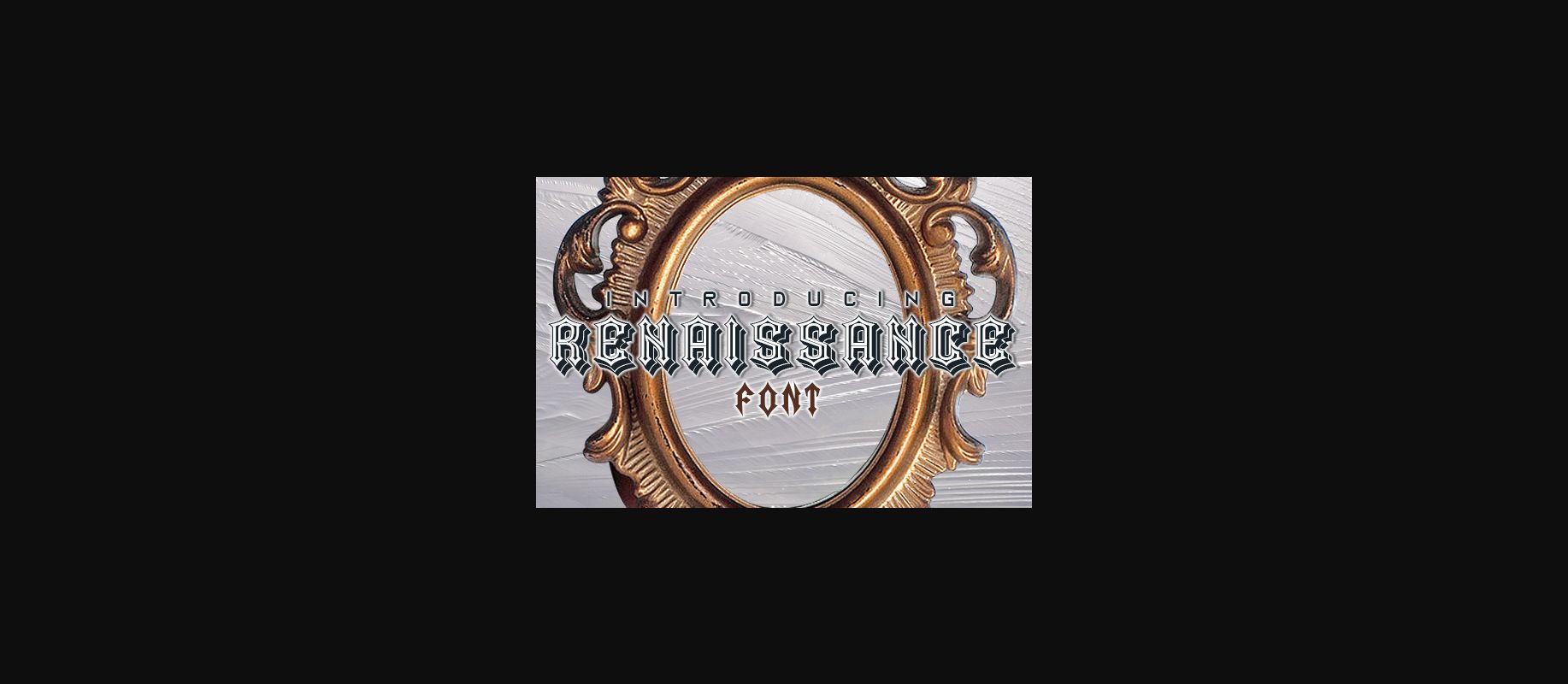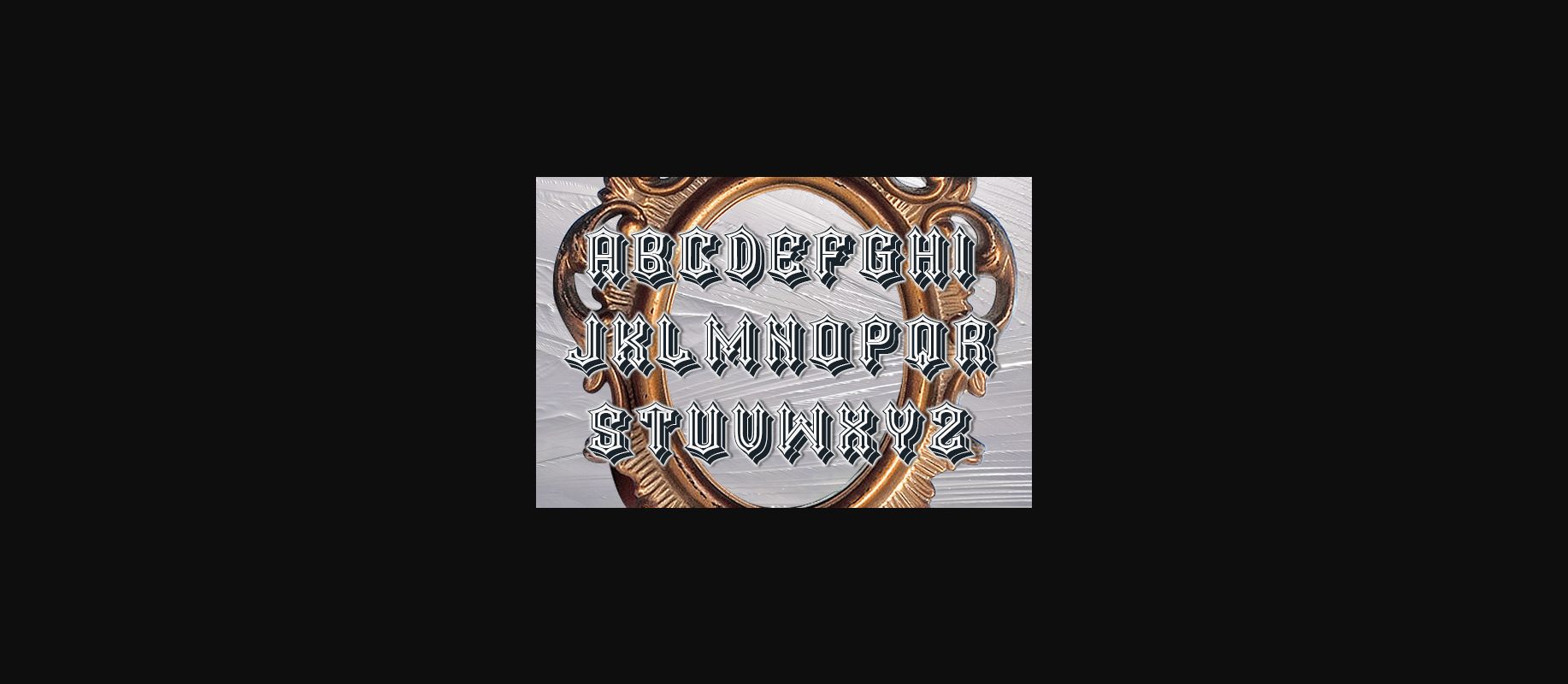
HomeDecorative FontsRenaissance Font Decorative Fonts Renaissance Font FacebookXPinterestWhatsApp 1 of 5 ... Renaissance Font Poster 2... Renaissance Font Poster 3... Renaissance Font Poster 4... Renaissance Font Poster 5... About Renaissance Font Renaissance is a strong and bold Gothic style font that will make Your design shine. Use this font on posters, flyers and much more. DOWNLOAD NOW People also explored Kiysoom Font Kintamani Font Fairy Tales Font Majesty Font Boston Font Blah Blah Blah Hillow Script Font Heather Prism Peach Bella Canvas 3001 Better Font 291 0 TagsRenaissance Font Previous articleLove Story FontNext articleMonastery Font LEAVE A REPLY Cancel reply Comment: Please enter your comment! Name:* Please enter your name here Email:* You have entered an incorrect email address! Please enter your email address here Website: Save my name, email, and website in this browser for the next time I comment. Personal Use Free The Sweet Neo Personal Use Free Read more about this font Mellow Personal Use Free Read more about this font Panaroe Personal Use Free Read more about this font Sellena Brush Font Personal Use Free Read more about this font BLOG Elegant Wedding Invitation Fonts – Handwritten & Script Fonts Elegant Wedding Invitation Fonts Your wedding day is one of the most important moments of your life, and every detail matters—including your invitation design. Our... The 10 Best Handwriting Fonts to Add Personality to Your Designs How to Cut Any Font on Cricut: Convert a Font to SVG (Free) Best Fonts for YouTube Videos: Make Your Thumbnails Stand Out